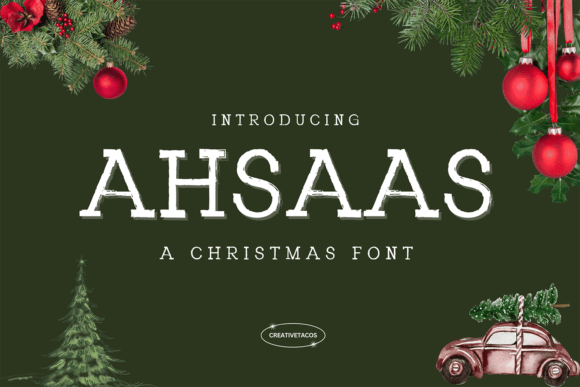
Looking for the perfect font to enhance the beauty of your logo? Look no further than Ahsaas Font, the best font for beauty logos. Created by Creative Tacos, this font is designed to captivate and inspire.
Ahsaas Font belongs to the display font family, adding a touch of uniqueness to any project. With its fun and cool textured style, it will instantly catch the eye of your audience. Whether you're working on a fashion brand, a beauty blog, or a cosmetics line, this font is a must-have.
What sets Ahsaas Font apart is its ability to transform any creation into a work of art. Its versatile nature ensures that it can be used across various platforms, from websites to social media posts. Let your imagination run wild as you explore the endless possibilities this font has to offer.
With Ahsaas Font in your fonts' library, you'll never have to worry about blending in with the crowd. Stand out and make a statement with every design. From elegant and sophisticated to bold and playful, this font adapts effortlessly to your vision.
Not only does Ahsaas Font exude creativity, but it also evokes a sense of emotion. Its captivating curves and intricate details evoke feelings of joy, excitement, and curiosity. Your audience won't be able to resist the allure of your designs when they are accompanied by this font.